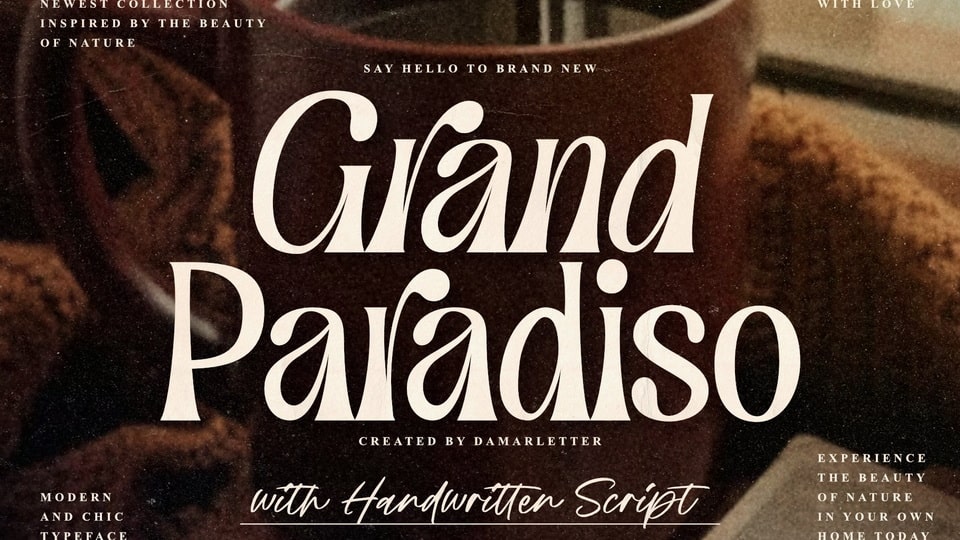
Download Grand Paradiso font, a luxurious and elegant display typeface that will add a touch of sophistication to any design. With its bold and dramatic curves, Grand Paradiso font is perfect for headlines, titles, and branding projects that require a touch of elegance and class.
Designer: Damarletter